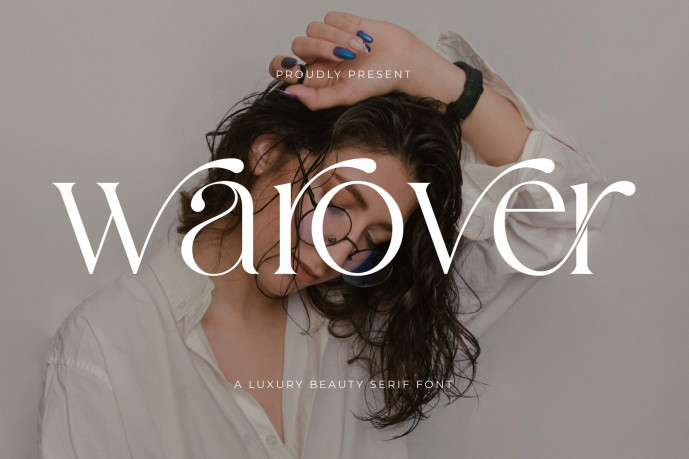
Warover Font
Designer: MandH_Type
Warover Font, the elegant, beautiful, and modern Serif. With its modern and minimalist look, warover brings a luxurious, classy, ​​and clean style to your projects such as websites, modern logos, brand identities, social media quotes, wedding stationery, magazines, and more! warover features unique and classy capital letters A to Z and also comes with unique alternates making warover a beautiful font that can be customized for various projects and jobs you want.